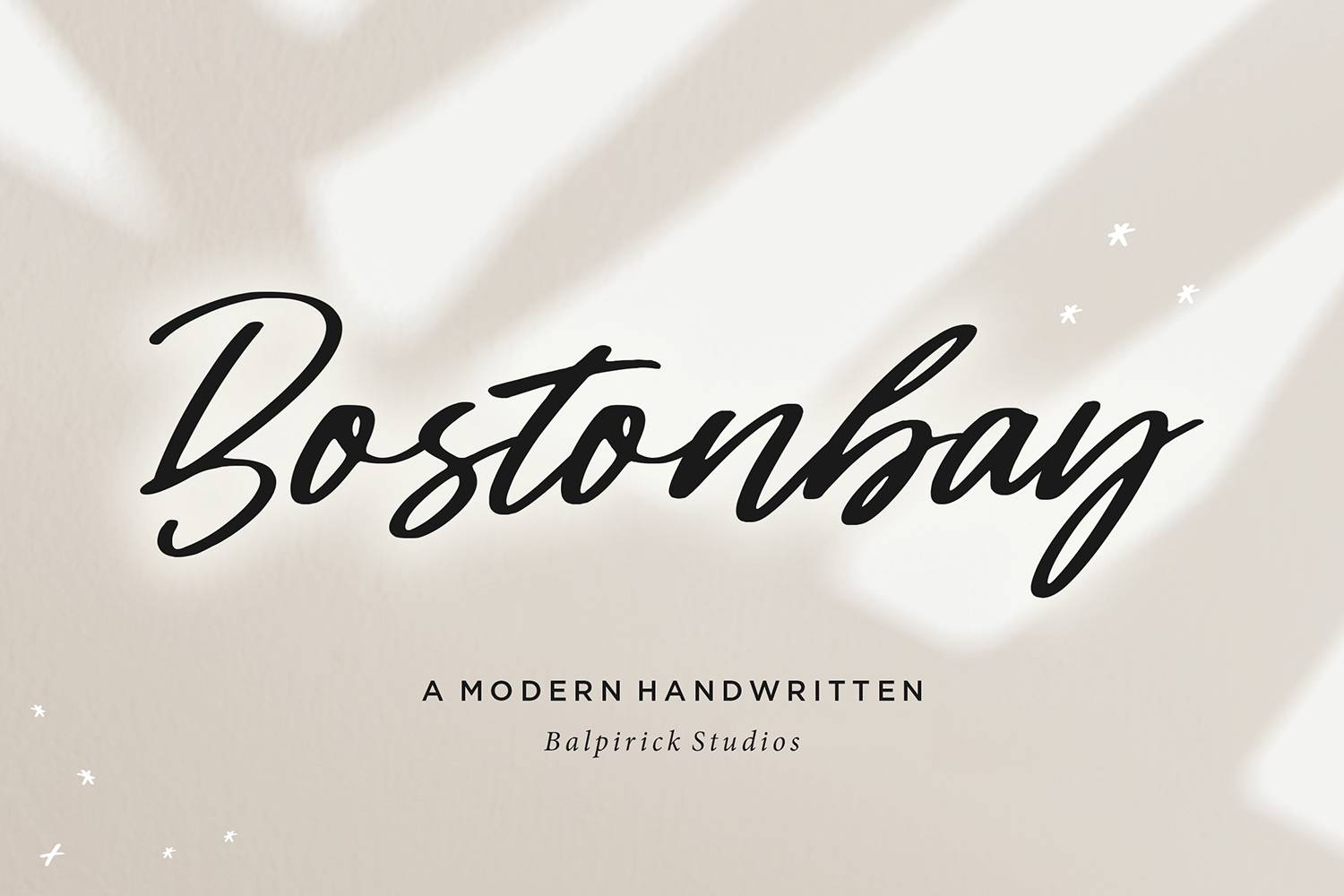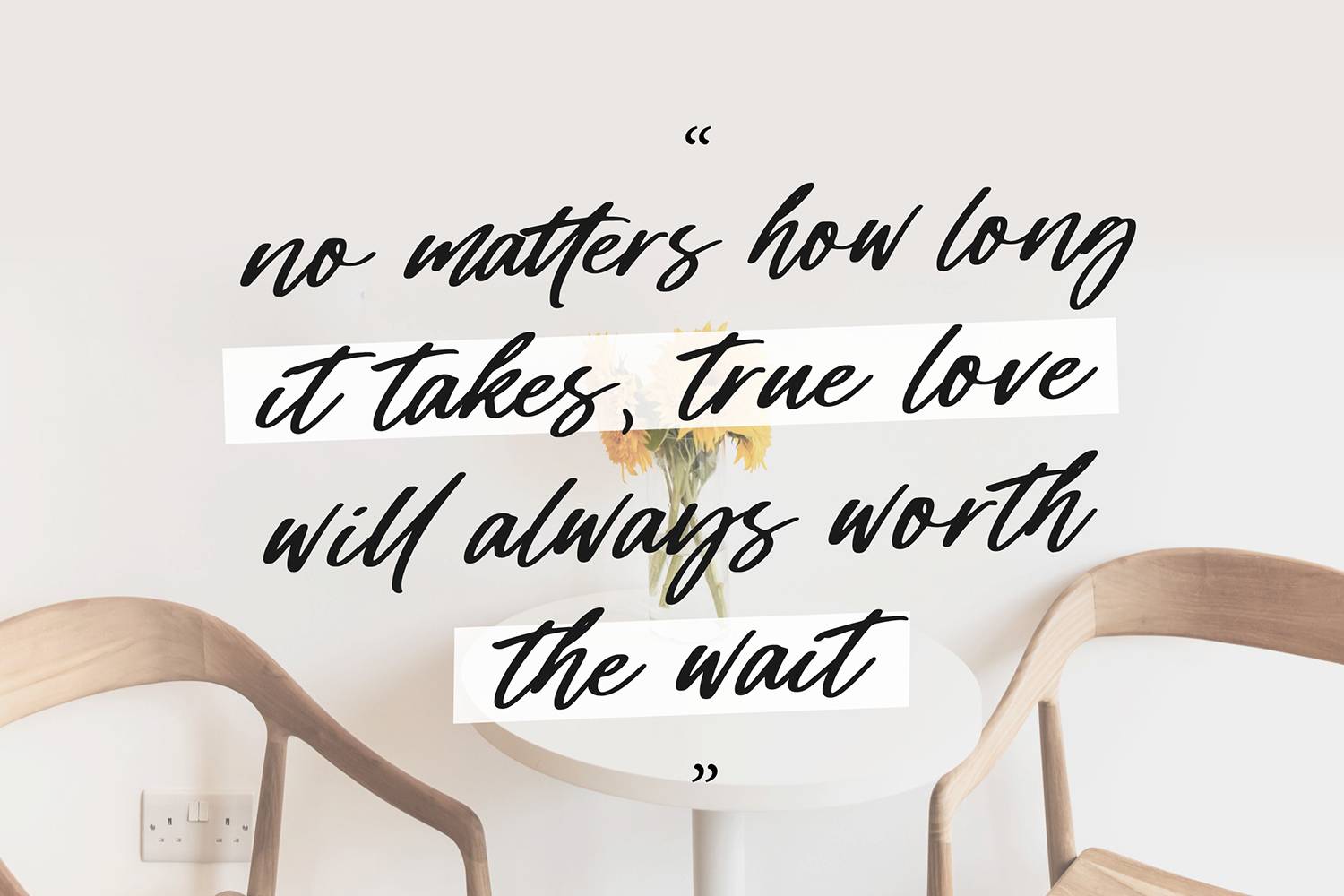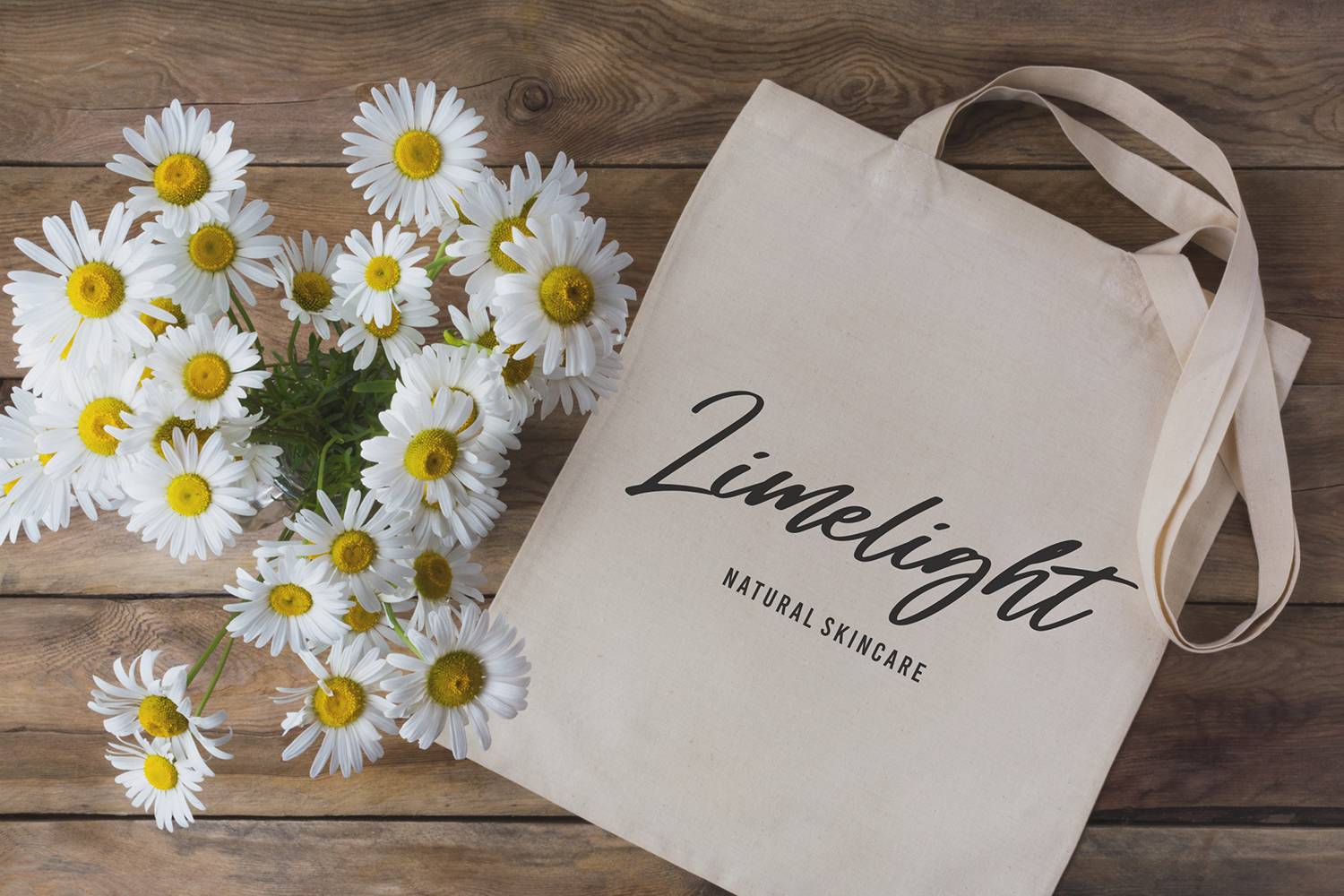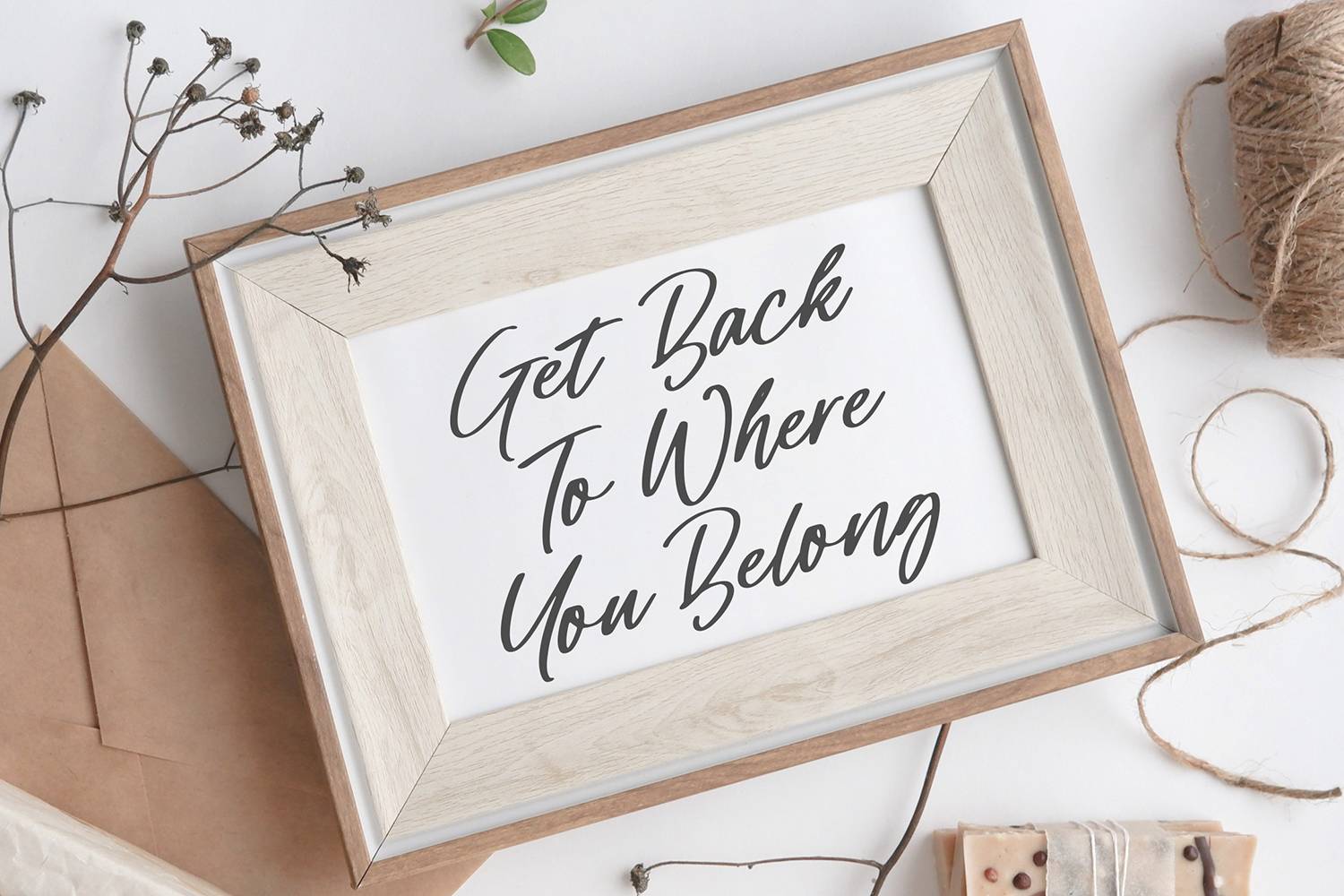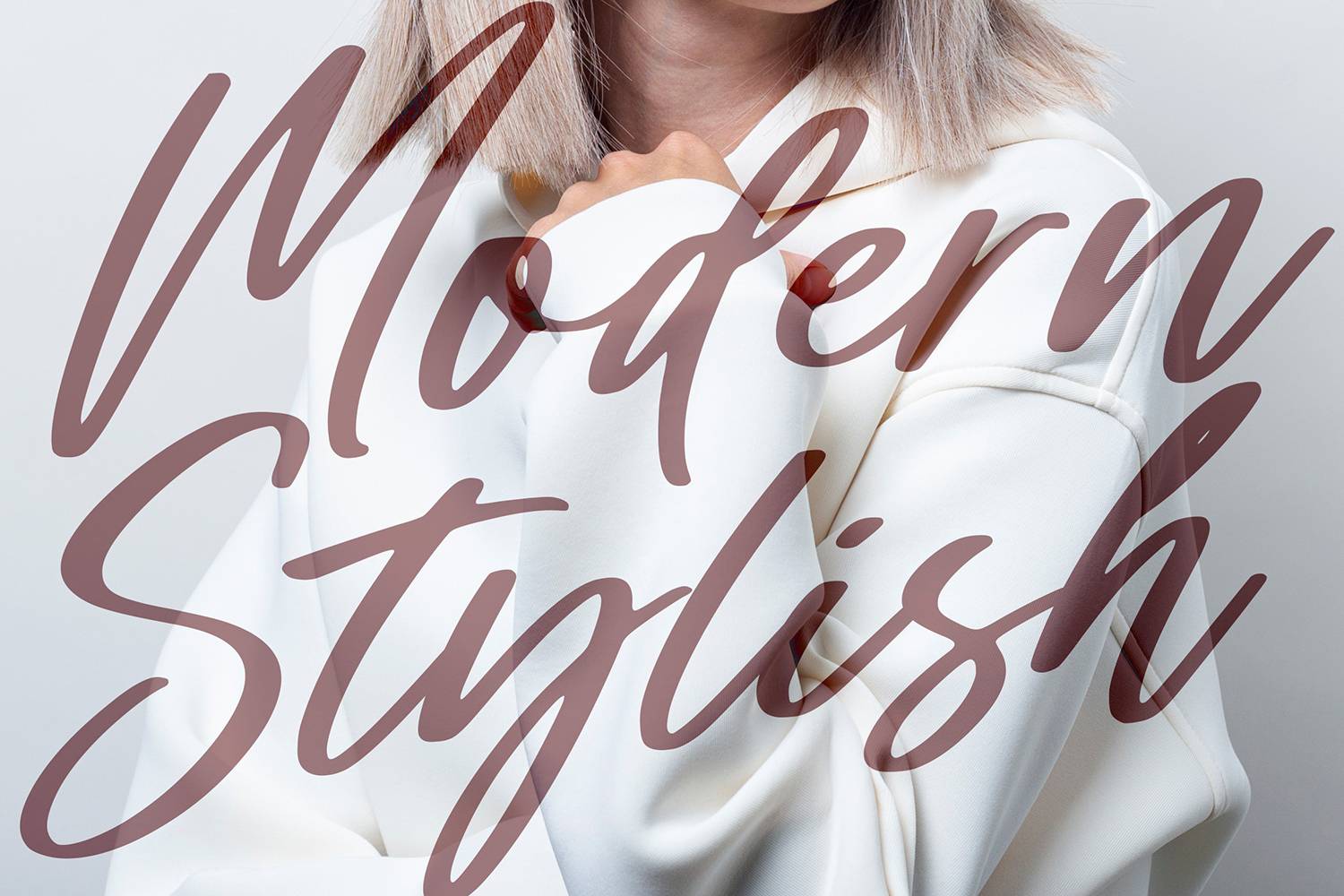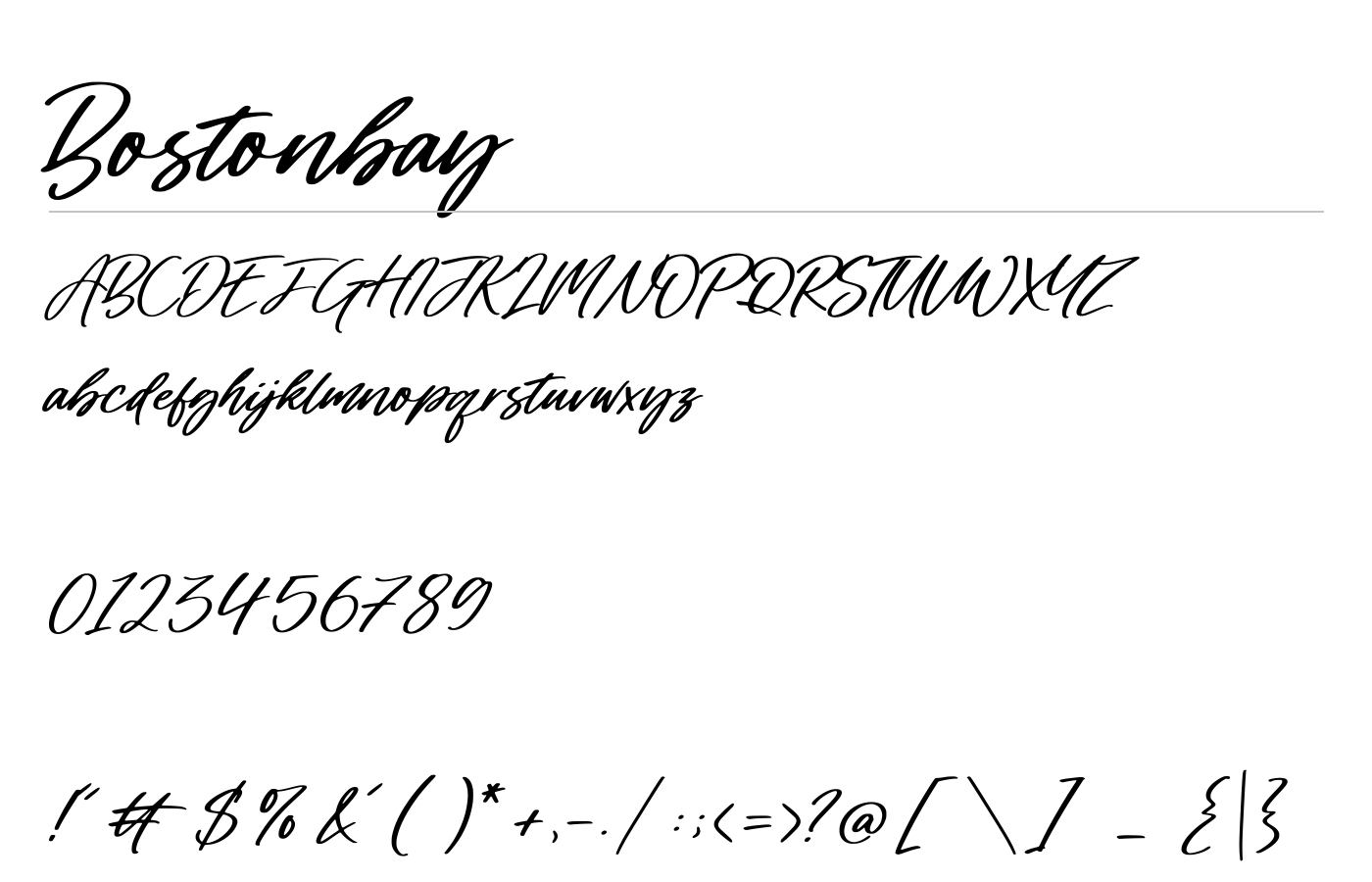
Bostonbay is a stylish script font with an elegant, handwritten feel that features smooth, flowing strokes and moderate contrast, giving it a modern yet personal touch. Its graceful letterforms and natural slant make it perfect for branding, invitations, and other creative projects where a sophisticated and approachable look is desired. This font works especially well for logos and headlines, adding a unique, artistic flair while maintaining readability.
Bostonbay Font